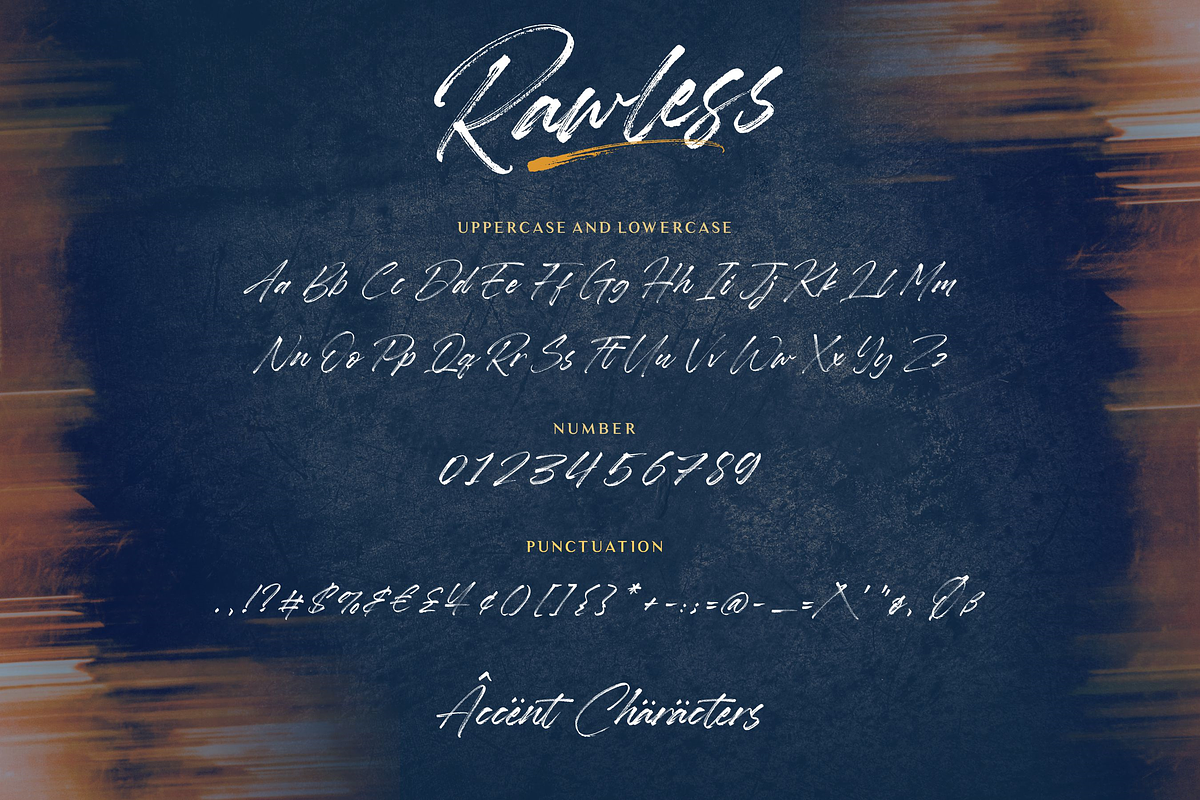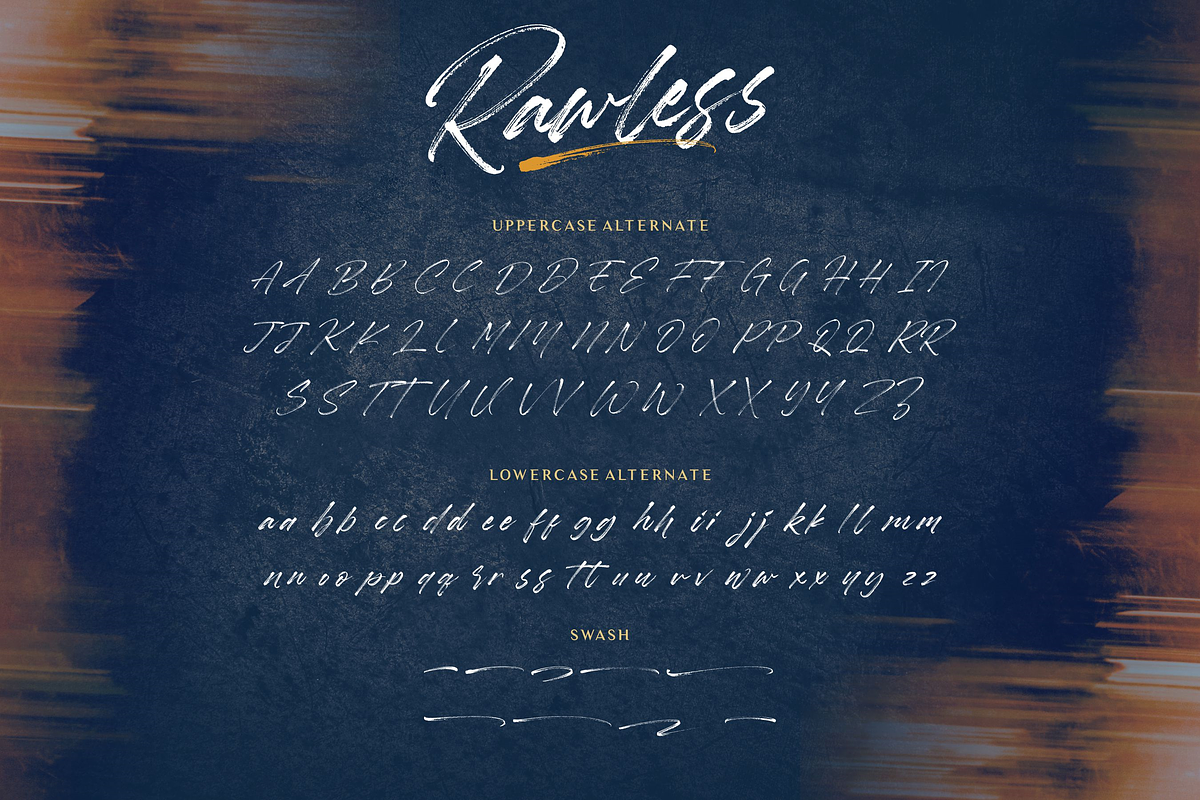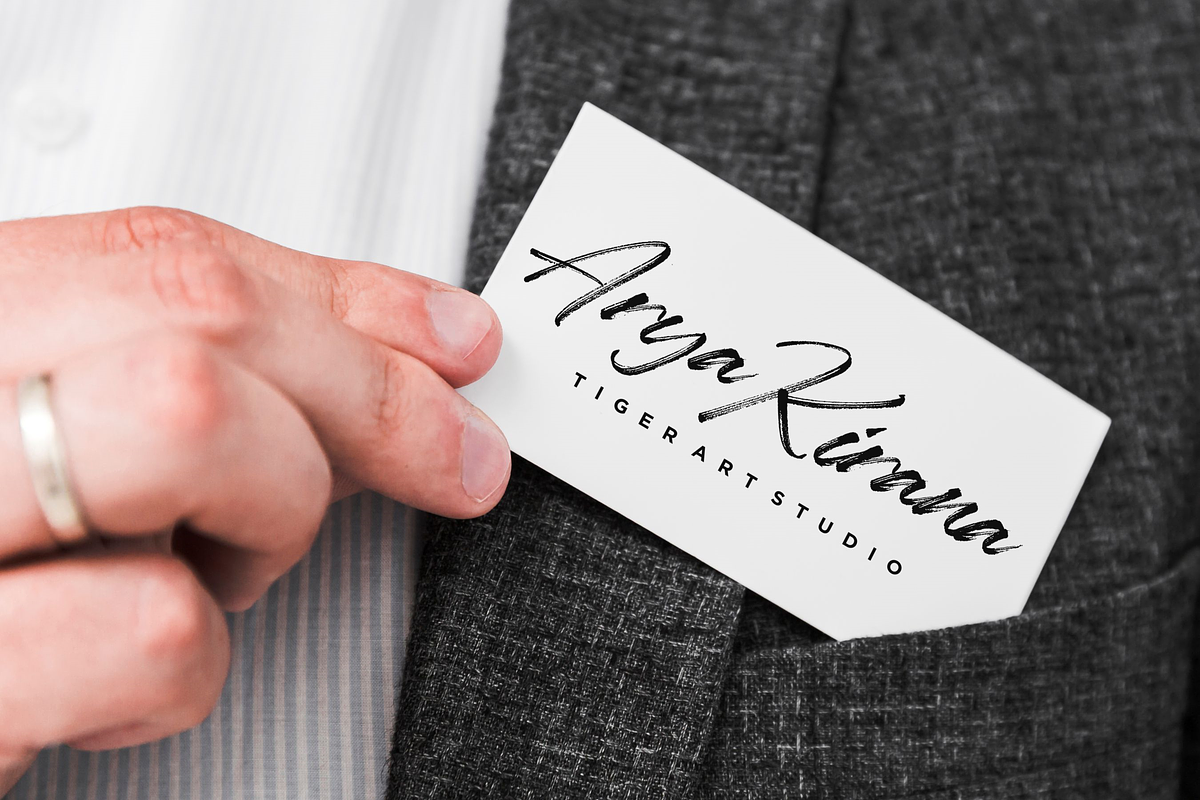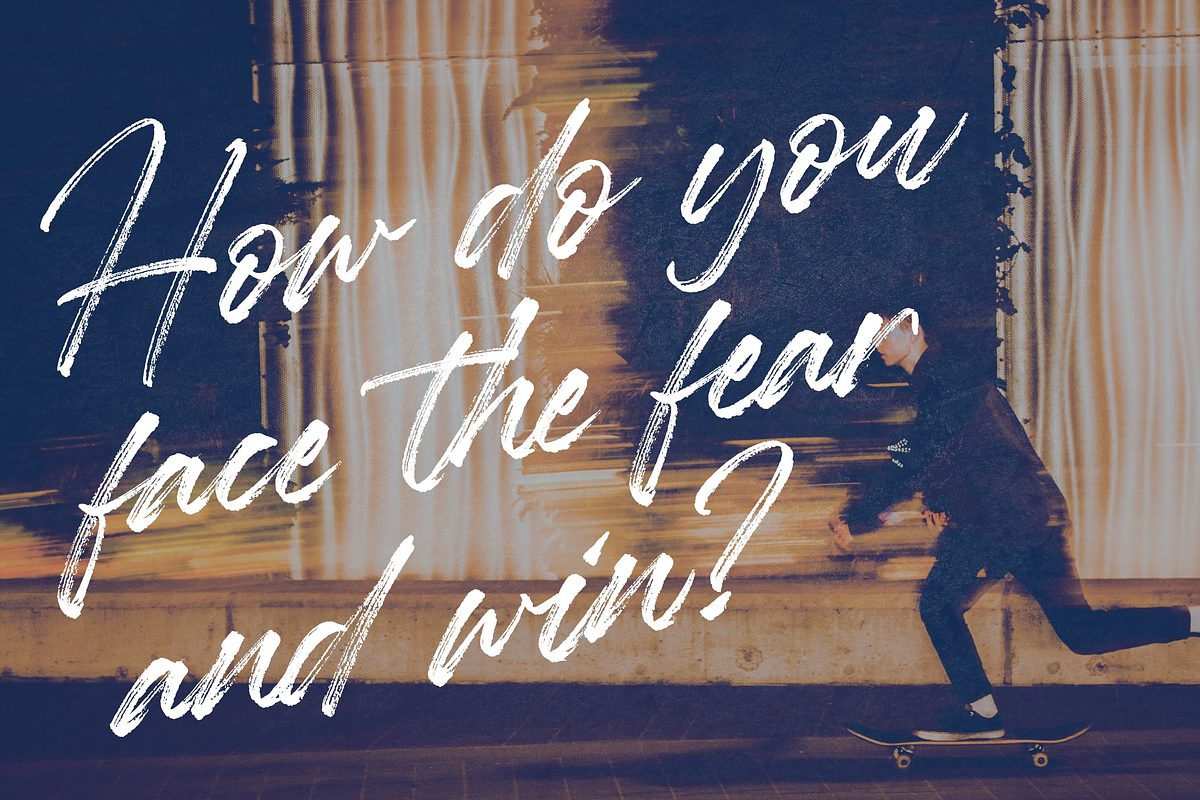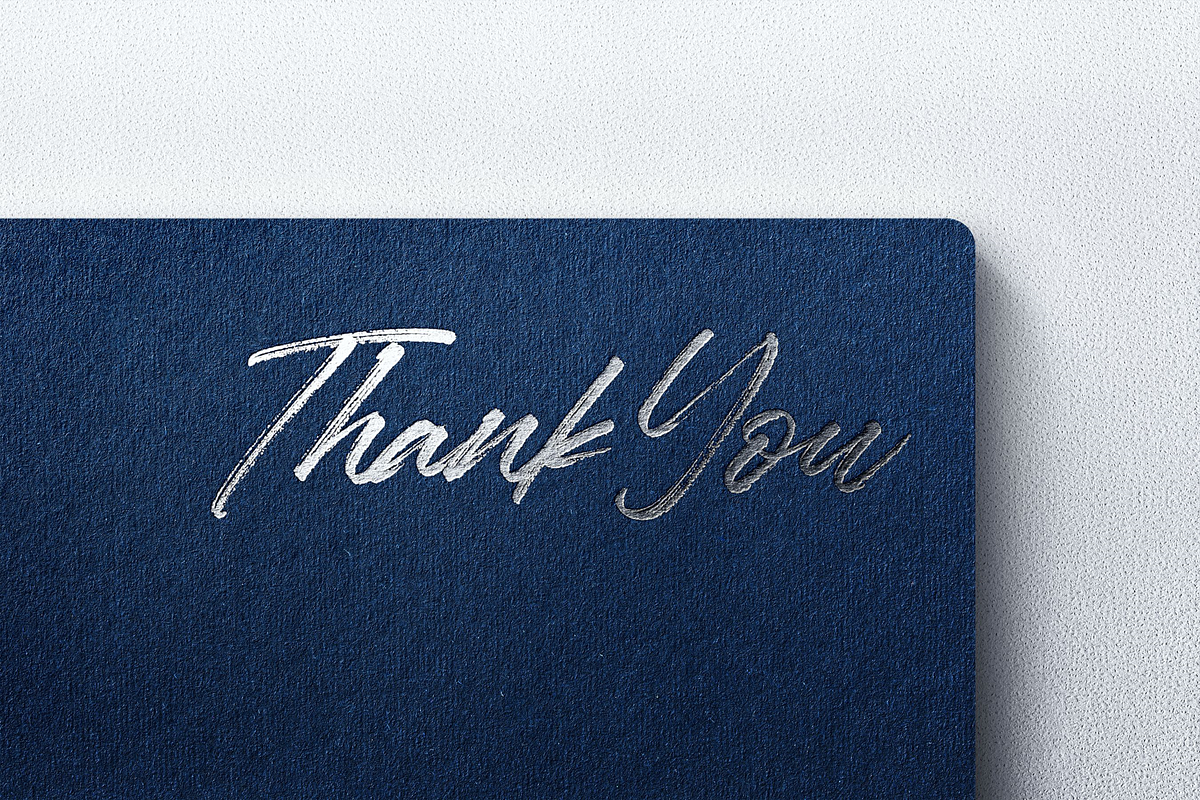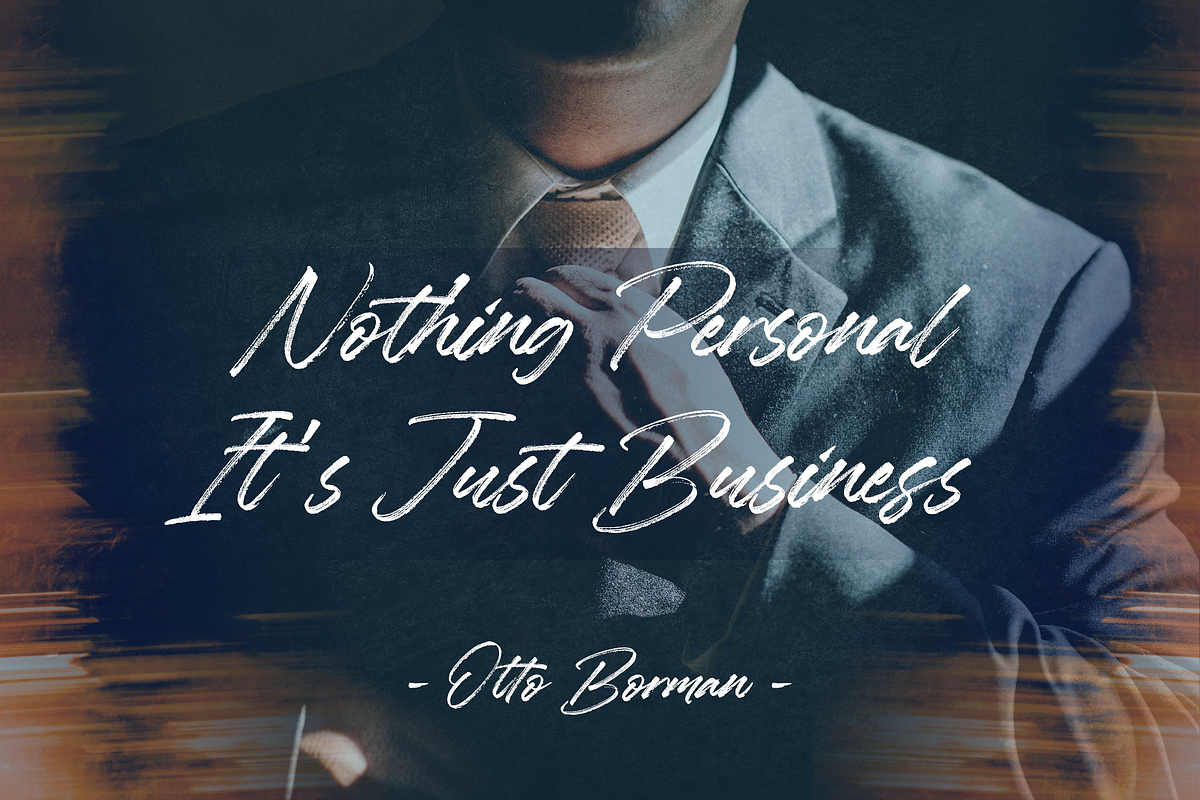
Rawless - Handbrushed Font
Proudly Present, Rawless Font
Rawless is a casual, fun handwritten font, created by using a brush pen. Clean and a little bit quirky, this font is the perfect fit for all of your logos, branding, social media, and crafty DIY projects.
- also multilingual support
- Lowercase Alternates
- Uppercase Alternates